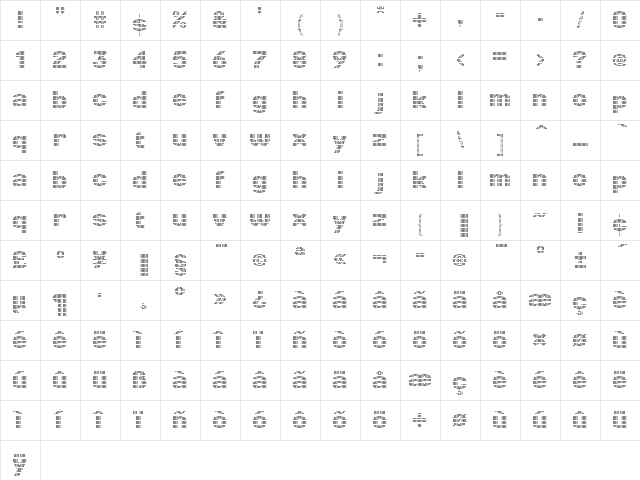
LinotypePunkt Light Light
Design Context for LinotypePunkt Light Typeface
LinotypePunkt Light is a composed and adaptable typeface that performs quietly and consistently across a wide range of design contexts. The delicate stroke weight brings airiness and refinement to layouts.